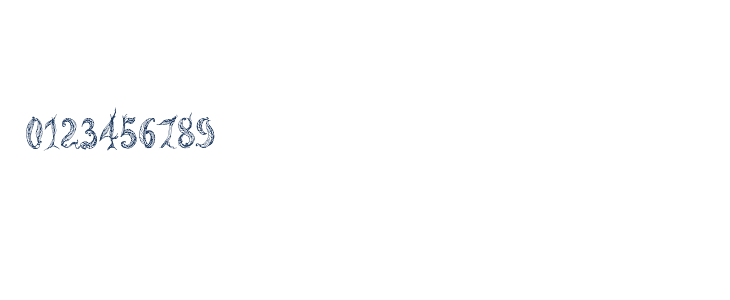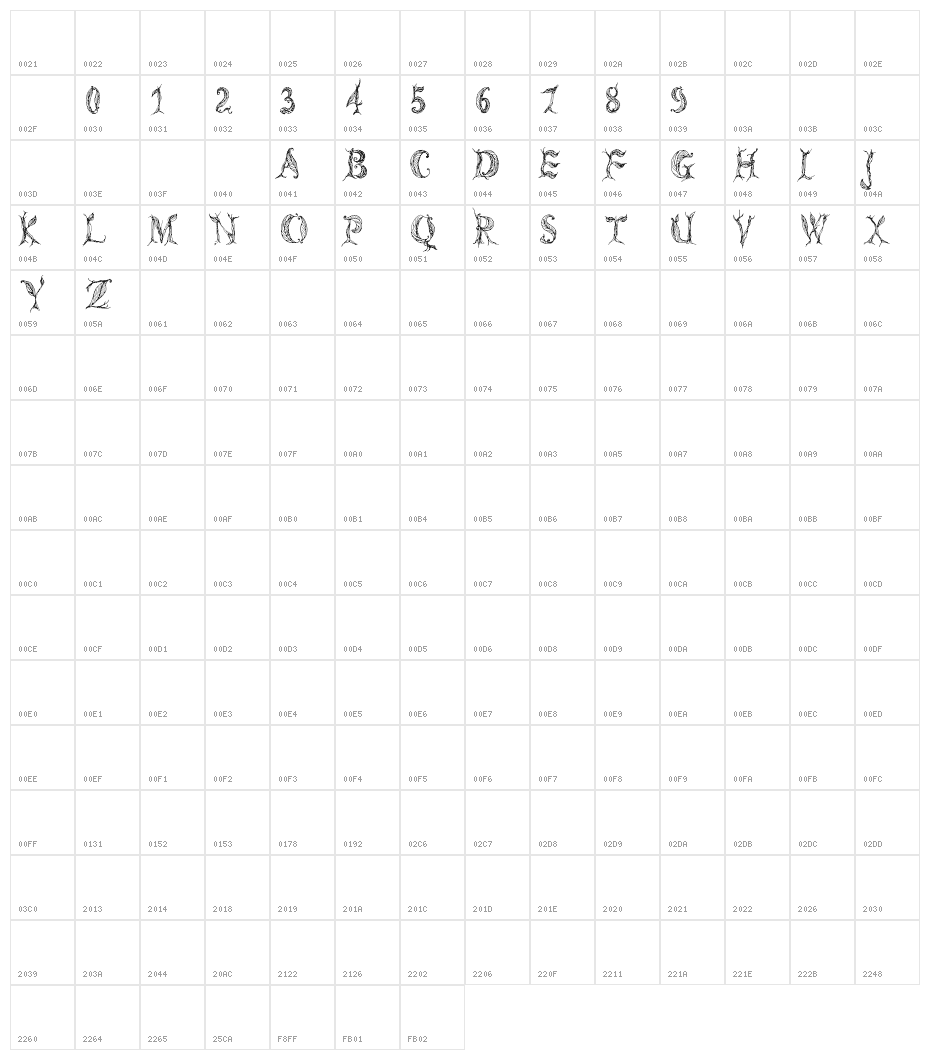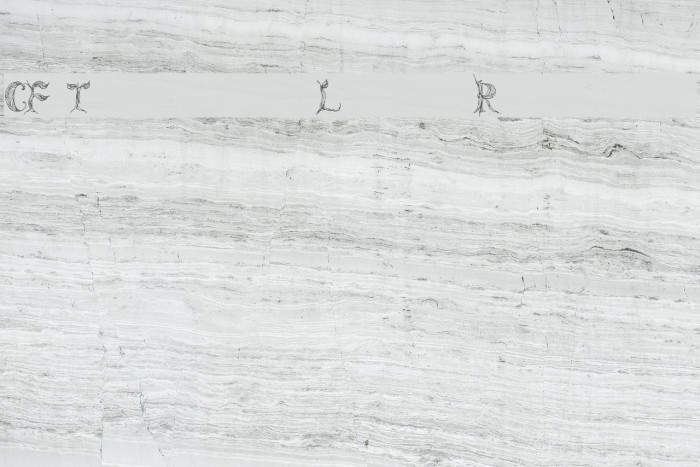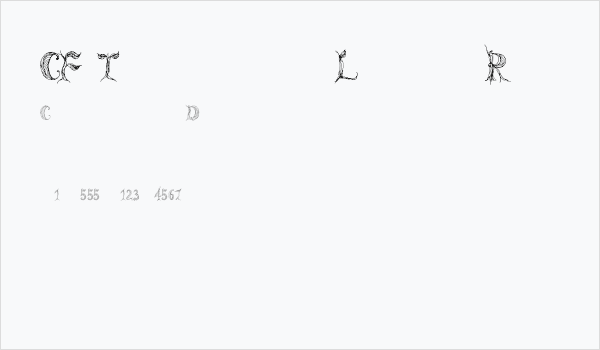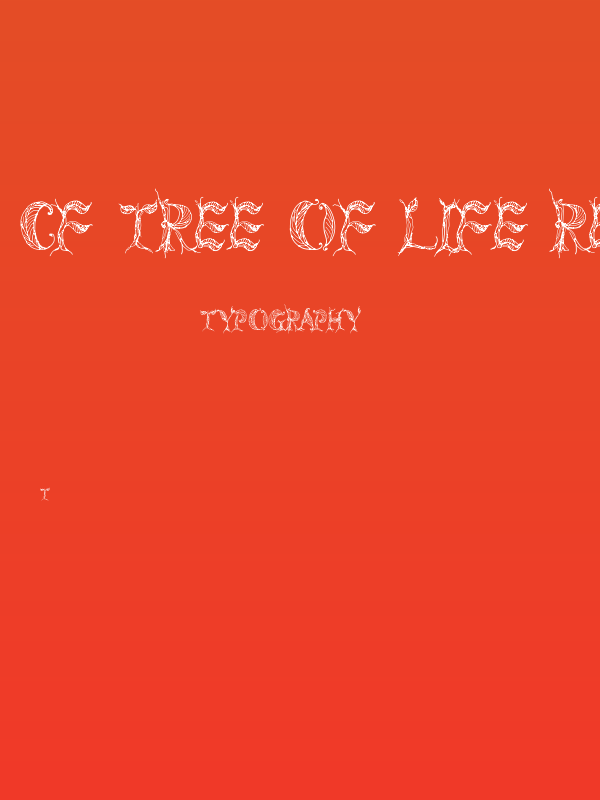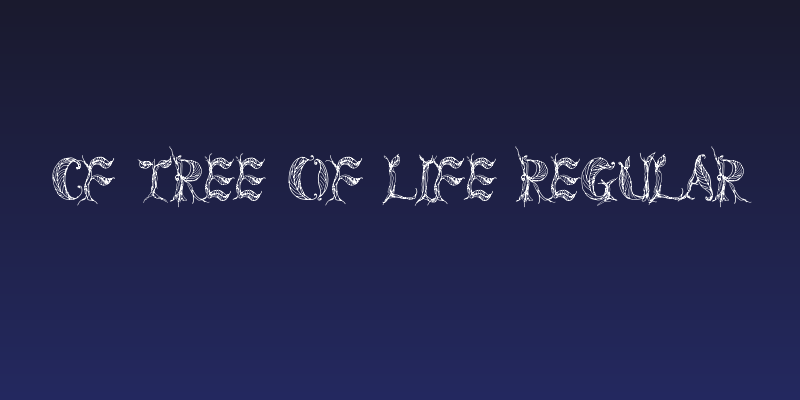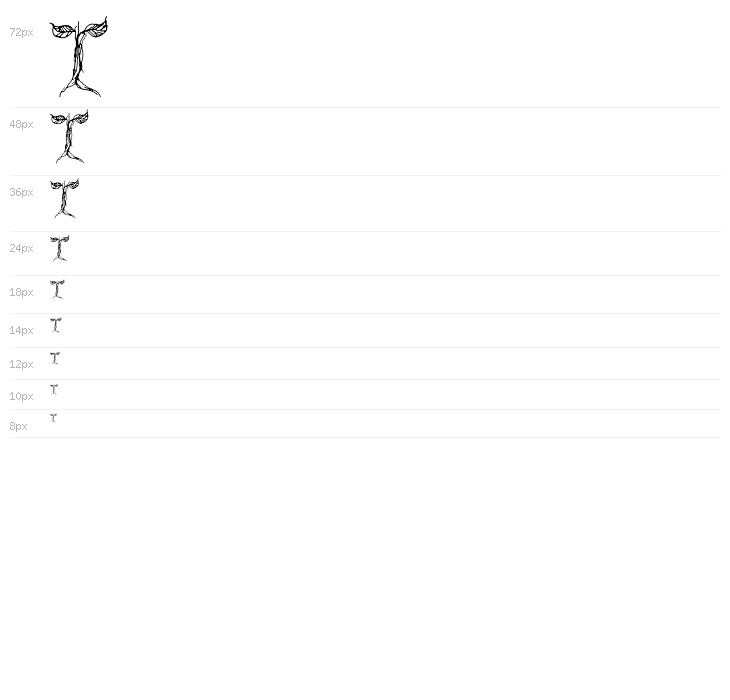
CF Tree of Life Regular Font
CF Tree of Life Regular Description
This font features an intricate and decorative design, reminiscent of intertwining branches and leaves, giving it a natural and organic feel. Each character is uniquely crafted with detailed line work that mimics the texture of tree bark and foliage. The uppercase letters are bold and elaborate, while the numbers and special characters maintain the same level of detail and complexity. This font evokes a sense of whimsy and fantasy, making it ideal for projects that require an artistic and nature-inspired touch.
| Use Case | Logos, Posters, Artistic Invitations |
| Proposed Projects | Ideal for fantasy-themed posters, eco-friendly brand logos, book covers, and artistic invitations. |